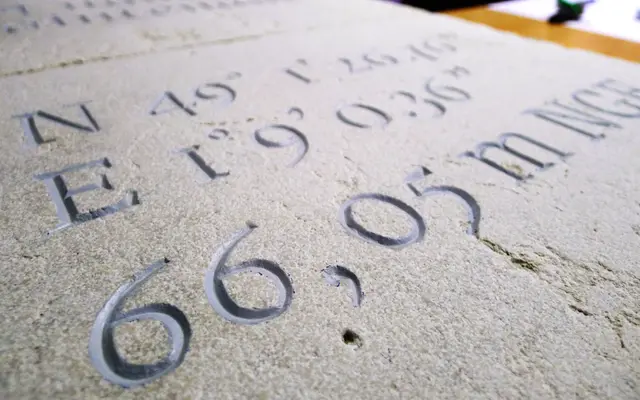
Coline
A is for · Emilie Rigaud
A seven-style family designed for small-format books, structured in three upright variants that graduate from a classical roman to a near-handwritten form.
Rooted in the small-format printing of 16th-century French publisher Simon de Colines, the family is built around compact proportions, generous x-height and large counters suited to tight settings. Its three members, Premiere, Cursive and Extreme, are all upright typefaces distinguished by their instrokes, outstrokes and rhythm rather than slant, giving designers a range of contrast without a conventional italic. The Black weight of Coline Extreme pushes the sculpted mass approach furthest, with deliberate cuts and blistered curves borrowed from the sketch process.
Coline draws from 16th-century French printers, particularly Simon de Colines, producing a humanist serif with strong pen-drawn qualities. The three subfamilies progress from a conventional roman to a near-cursive upright, all informed by historical small-format book typography.